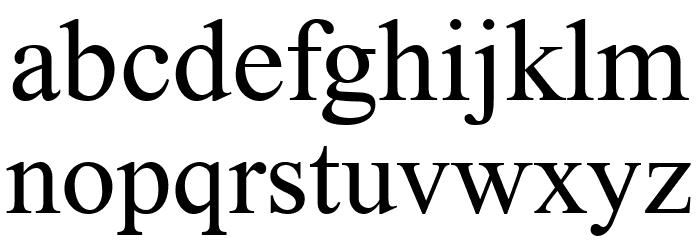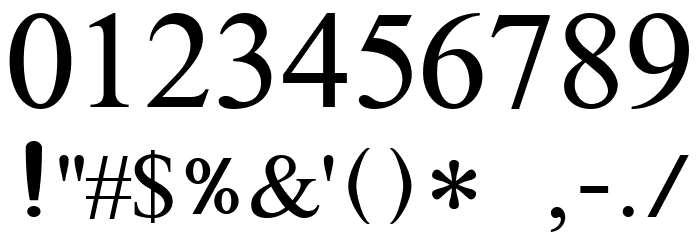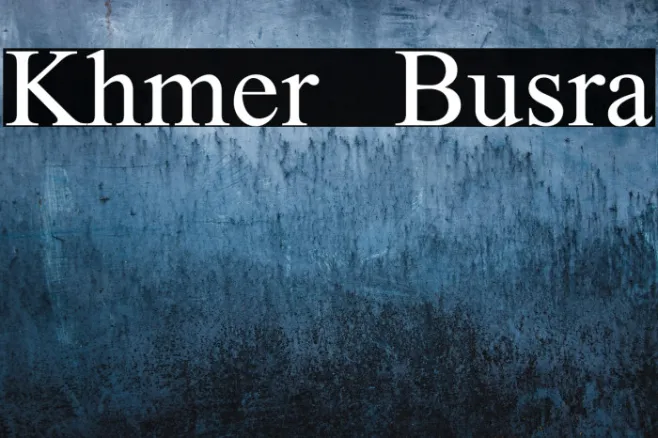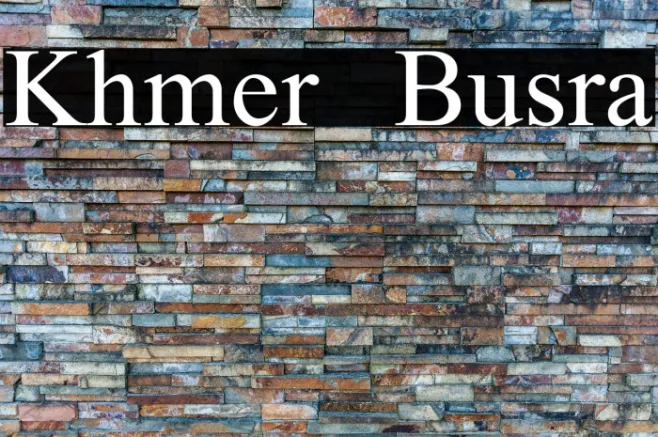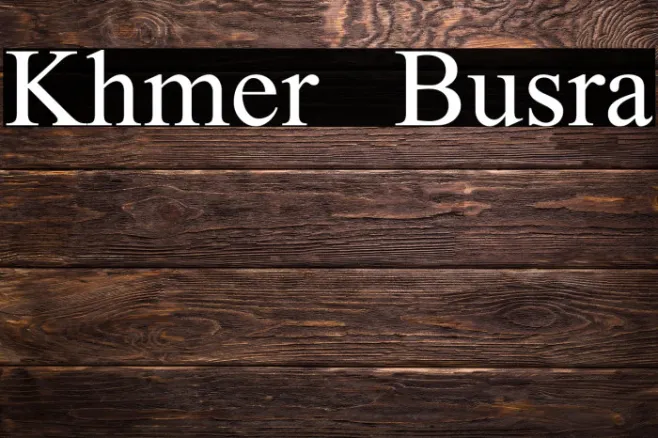
Khmer Busra Font
This font exhibits a classic serif style with elegant and well-defined strokes. The uppercase letters are bold and commanding, while the lowercase letters maintain a consistent and harmonious flow. The numerals are clear and easily distinguishable, making them suitable for both formal and informal contexts. The special characters are designed with precision, adding to the font's versatility. Overall, the font conveys a sense of tradition and sophistication, making it ideal for projects that require a touch of elegance and readability.
A classic serif font with elegant strokes and clear numerals.
- Proposed Projects: Ideal for book covers, formal invitations, editorial layouts, and branding materials that require a traditional and sophisticated appearance.
- Category: Serif
- Overall Style: Classic